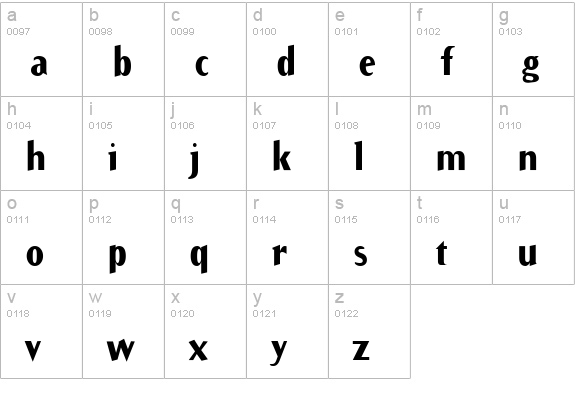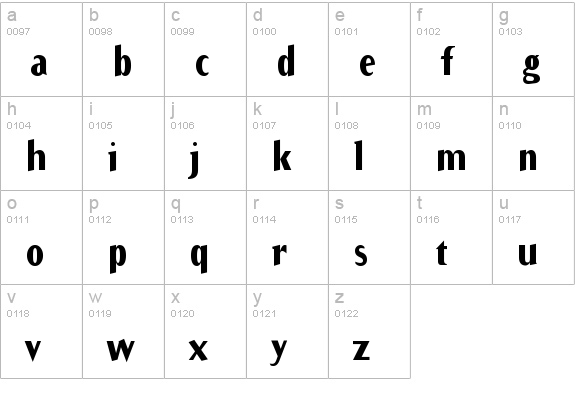
ArbitraryBold Bold is a strong, high-contrast variant in the ArbitraryBold typeface family \xE2\x80\x94 well suited to headlines, attention-grabbing titles, and strong calls-to-action.
ArbitraryBold Bold font is a striking and eye-catching typeface that commands attention with its bold and dynamic appearance. Its thick strokes and confident design make it perfect for creating impactful headings, titles, and logos. This versatile font exudes a sense of strength and modernity, making it ideal for a wide range of design projects. And the best part? ArbitraryBold Bold font is available for free download at FontsMarket.com! Simply head over to the website to get your hands on this powerful font and elevate your designs with its bold personality. Don't miss out on this amazing opportunity to enhance your creative projects with ArbitraryBold Bold font!